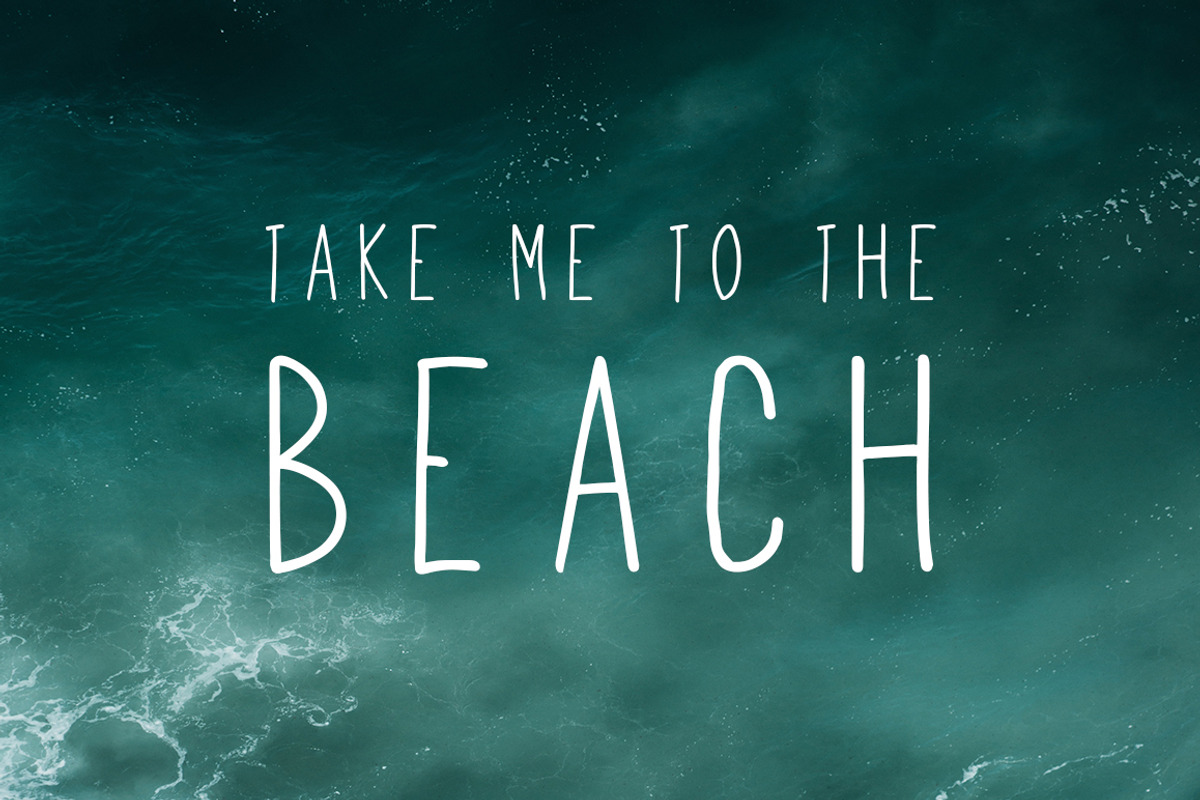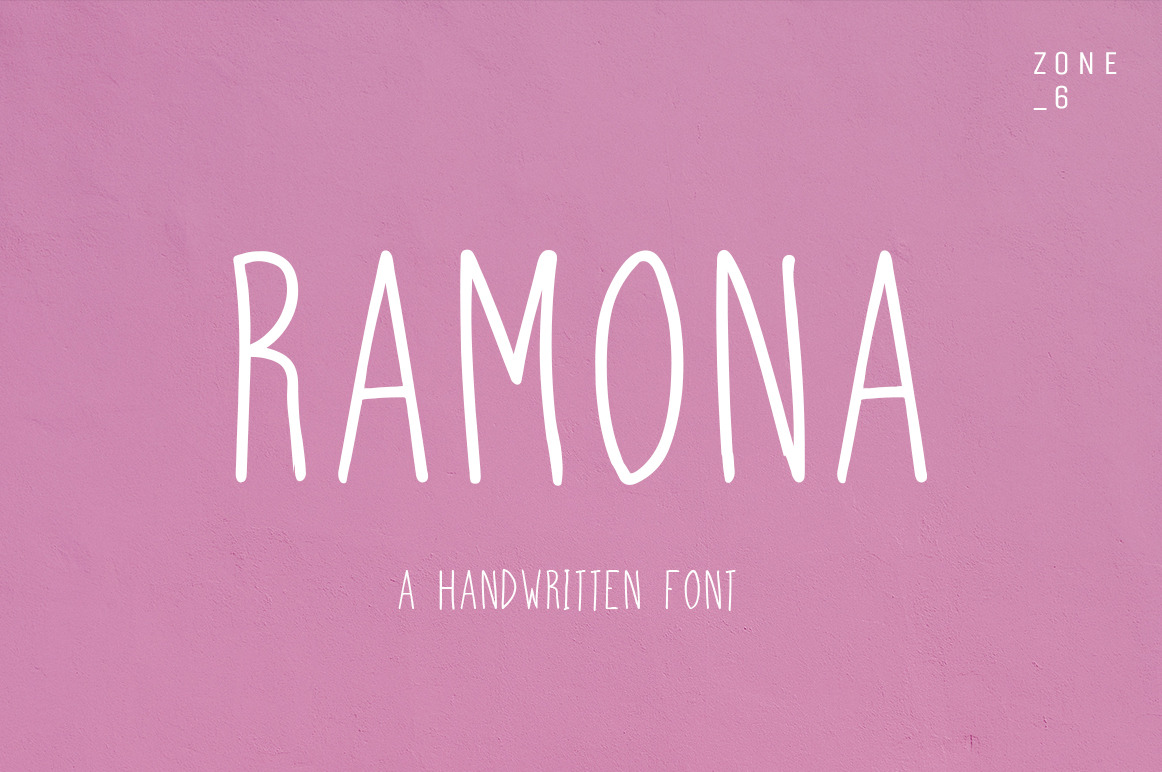
Ramona | A Handwritten Font
Instantly Create Fun & Whimsical Designs With Ramona!
Ramona is a handwritten font, designed to add a modern and casual style to all your branding. Ramona comes with its original font as well as italic, so you can create beautiful designs with this duo!
Ramona is perfect for branding, signage, and logotypes, but is versatile enough to work with anything you choose! It works particularly well for the food and drink, beauty, hospitality and events industries as well as for stationery, packaging and business cards.
- 2 Incredible Fonts
- Numbers and punctuation included
- Optimized kerning for aesthetic and highly readable texts
So if you want to create quirky designs that appeal to a contemporary audience, Ramona is the font for you.